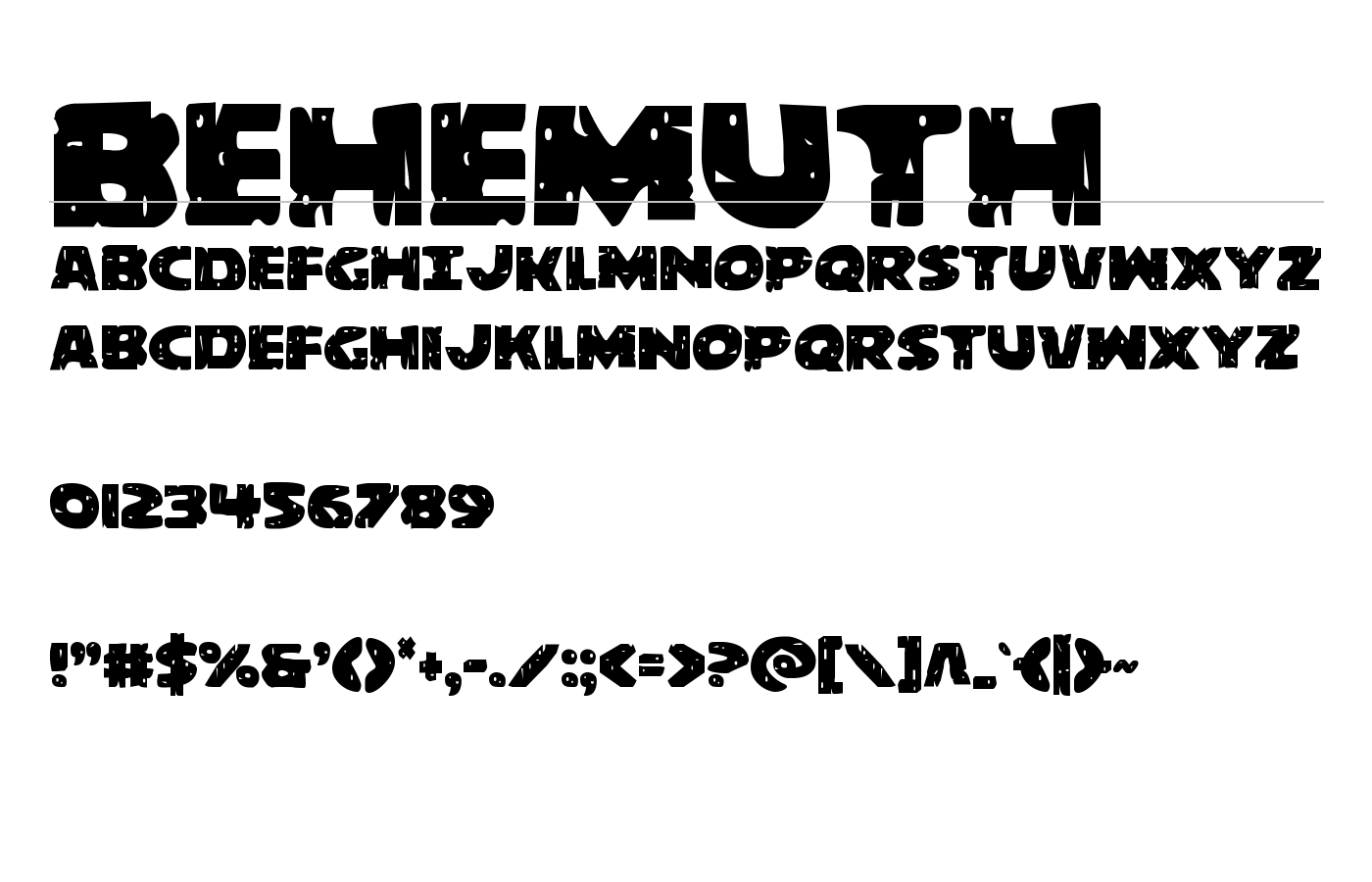
Behemuth is a bold, heavy sans serif font with a distinct, fragmented texture that gives it a rugged and intense character. Its strong weight and irregular shapes make it perfect for impactful headlines, posters, or branding that requires a powerful, edgy presence. This font works well in creative, urban, or alternative designs where a standout, aggressive look is desired.
Behemuth Font
About Behemuth Font